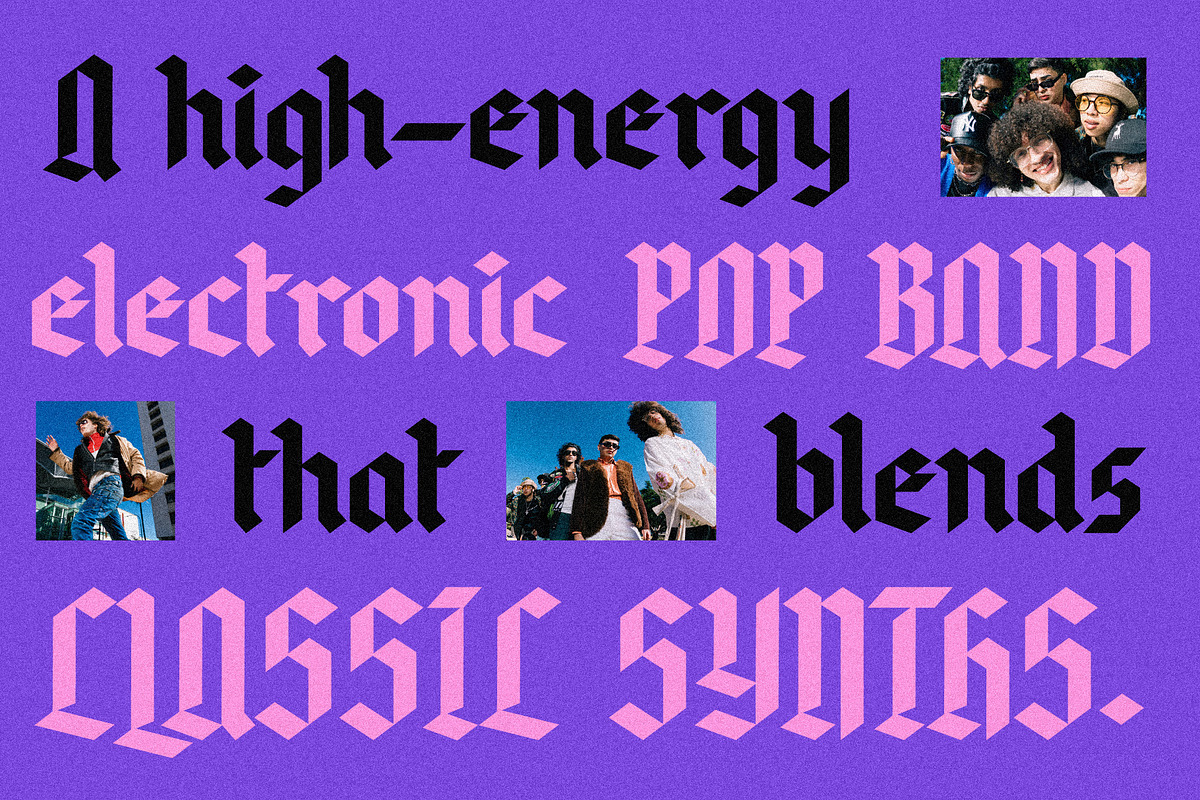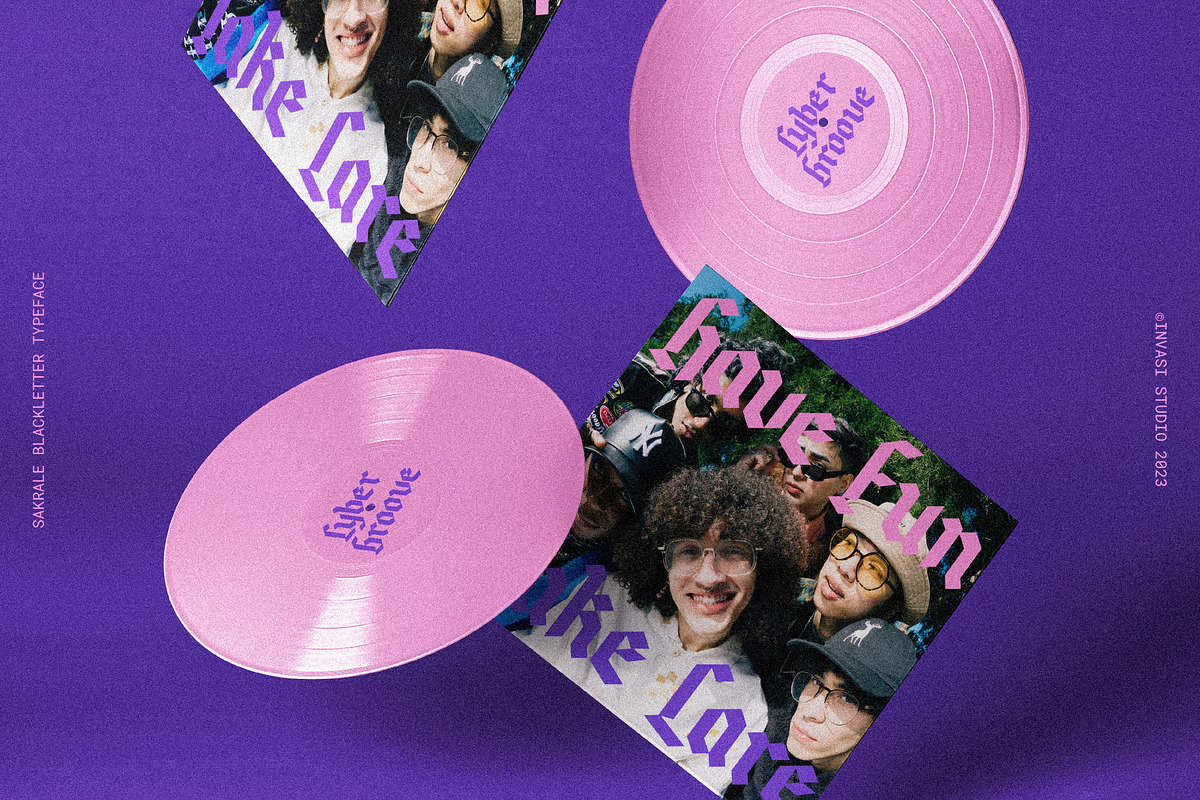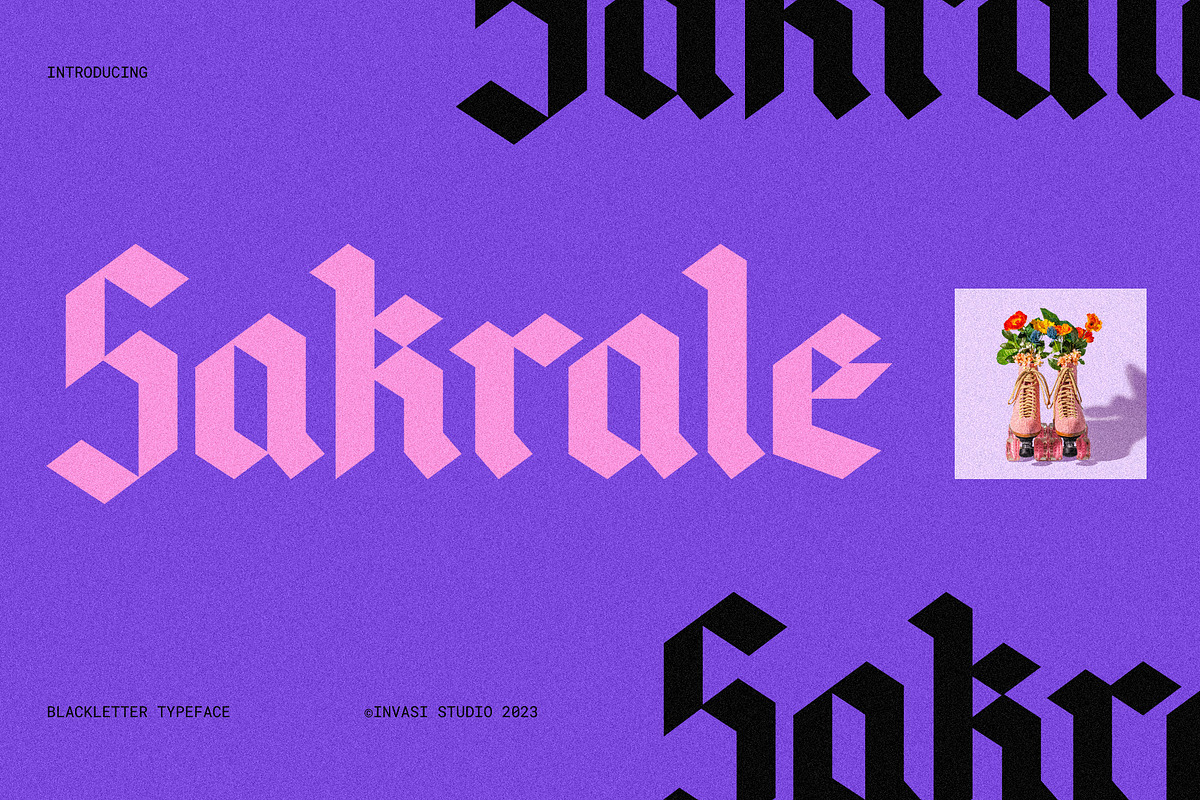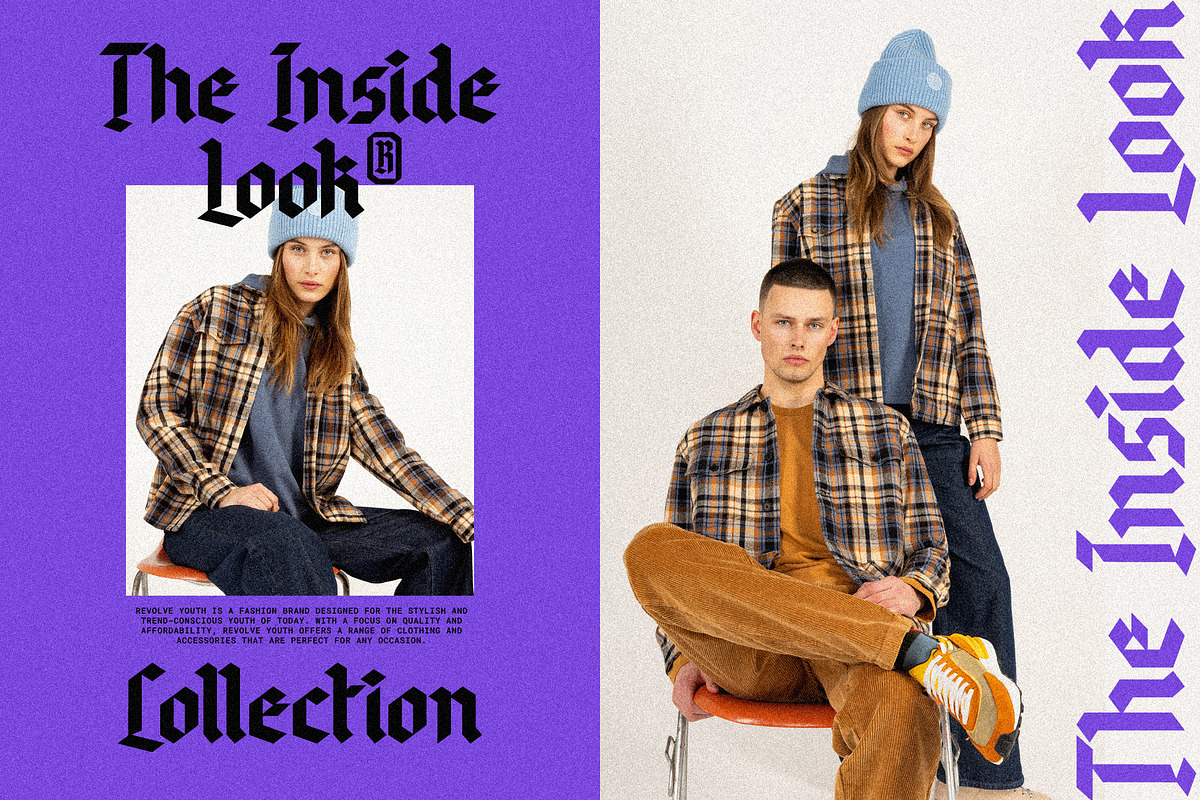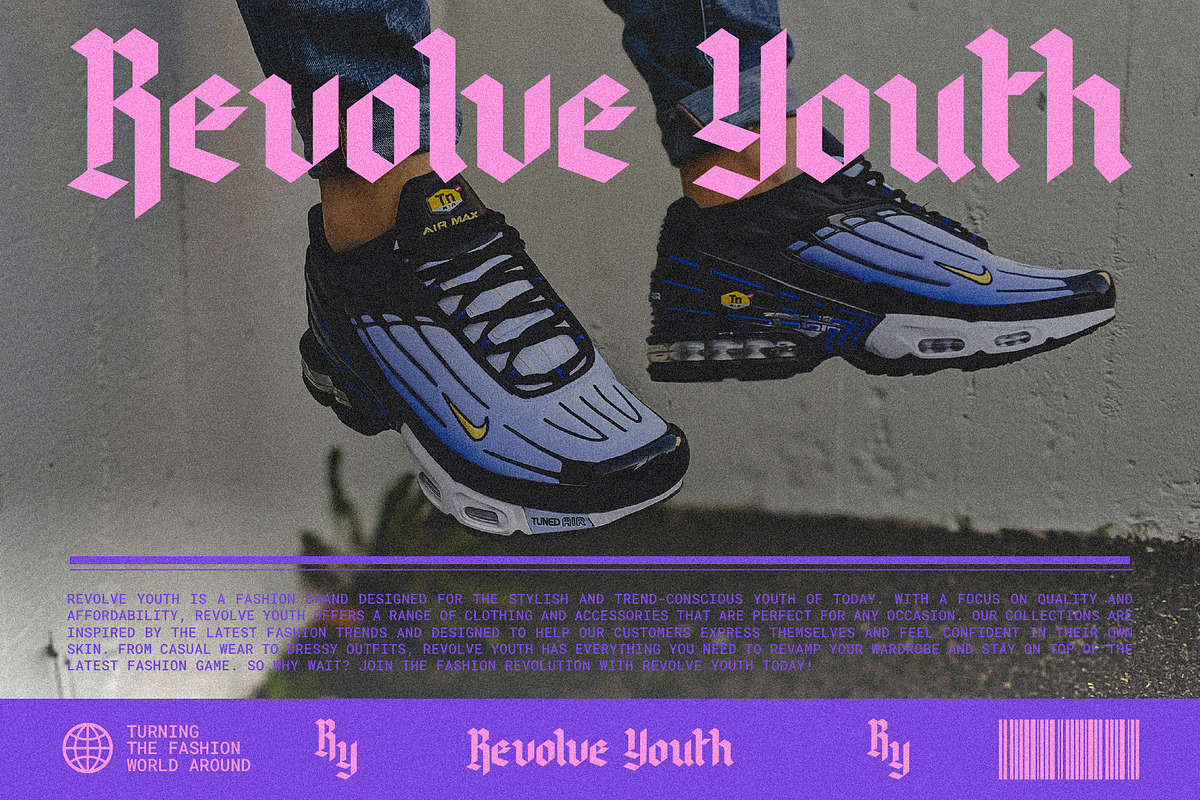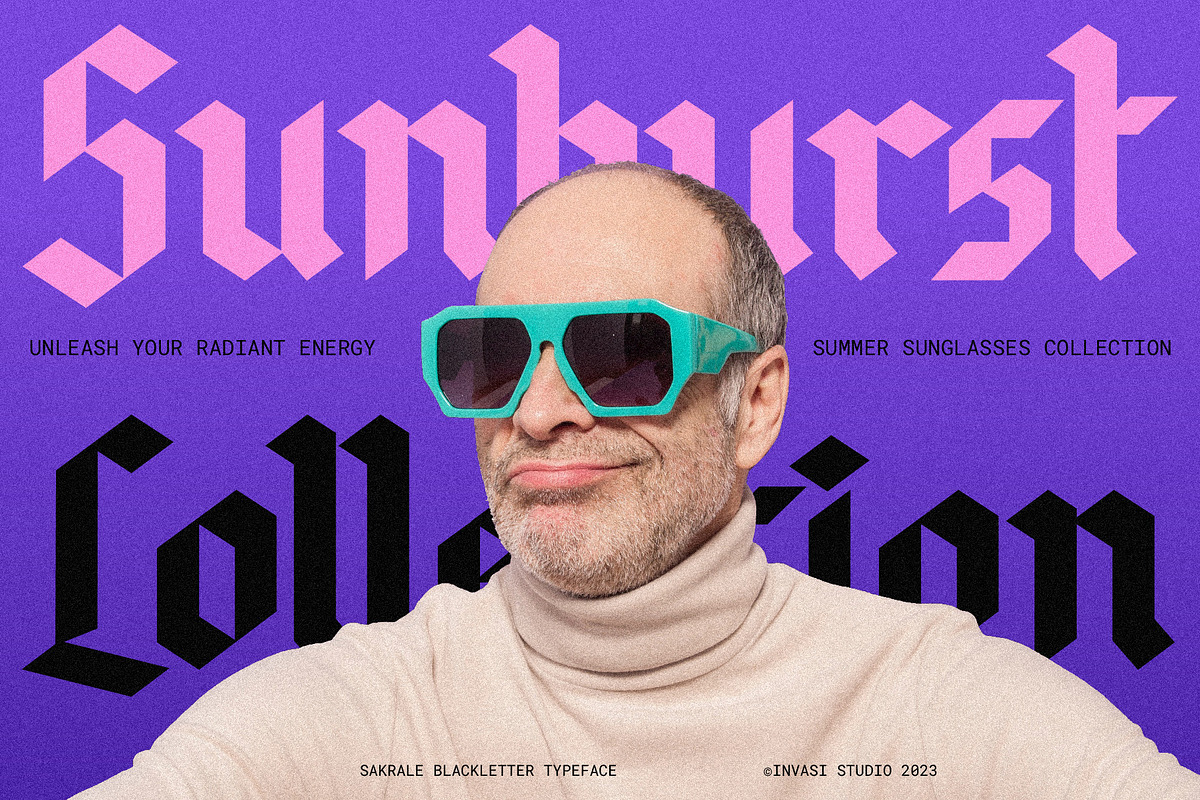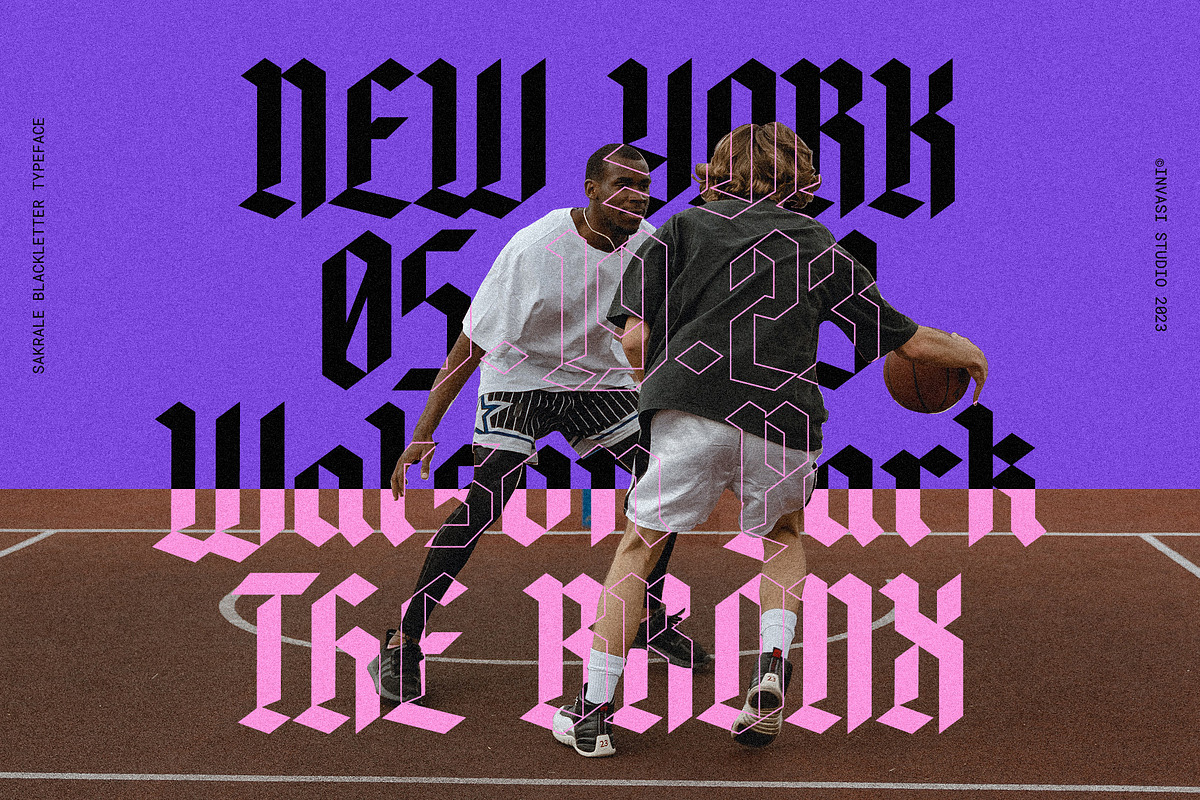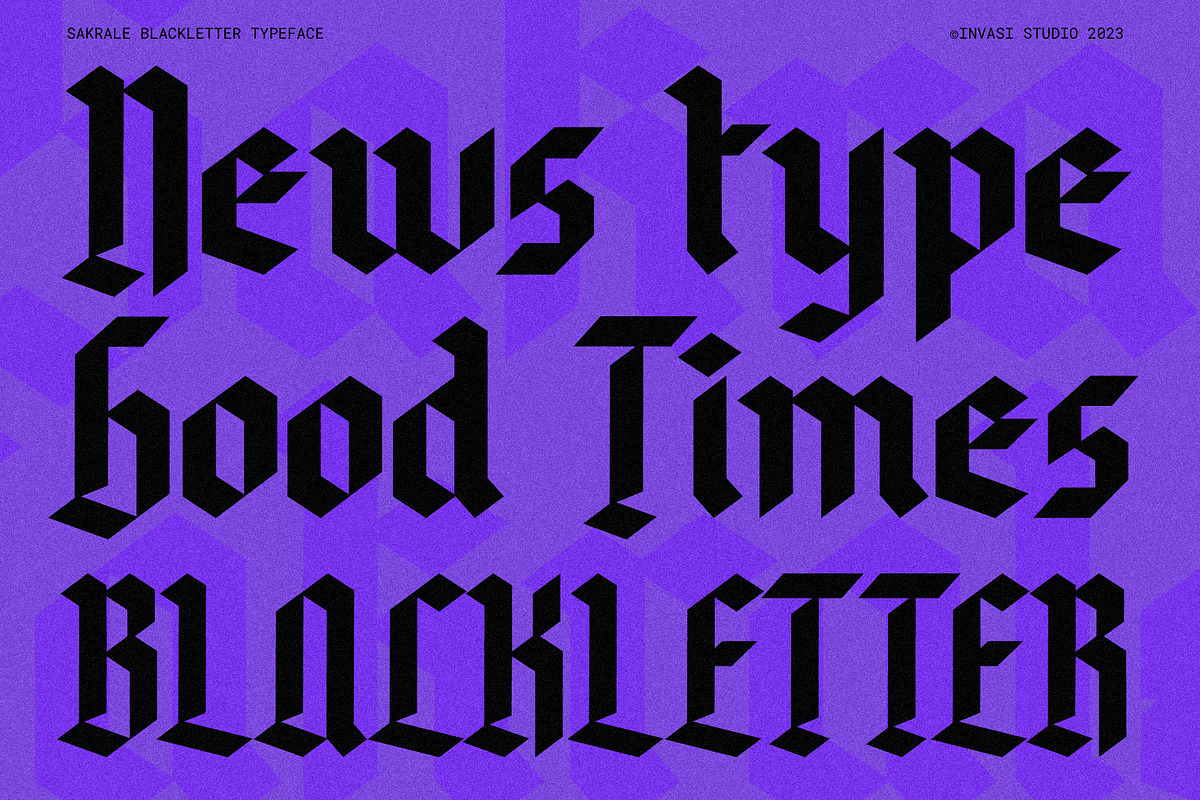
Sakrale - Modern Blackletter
Sakrale is a modern take on the traditional black letter font. Its unique glyph shape adds a touch of rigidity to its contemporary look, making it a perfect choice for your project who want to add a touch of sophistication to their work. The Sakrale font is designed to be user-friendly, with easy-to-read characters that are perfect for headlines, logos, and branding. This font is ideal for those who want to create a modern, edgy design that stands out. Whether you're a professional designer or just starting out, Sakrale is the perfect font.
Sakrale is the perfect font for any design project that requires a touch of elegance and class. Whether you're creating a logo, title, or poster, this font is guaranteed to make your work stand out from the rest. With its clean lines and modern feel, Sakrale is sure to impress.